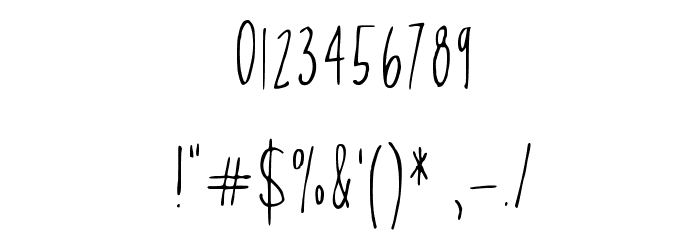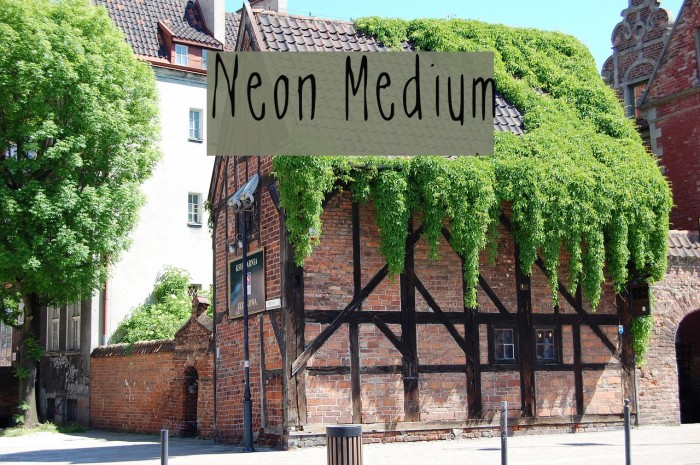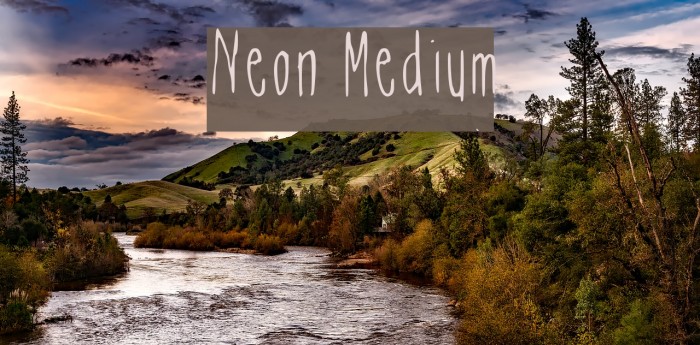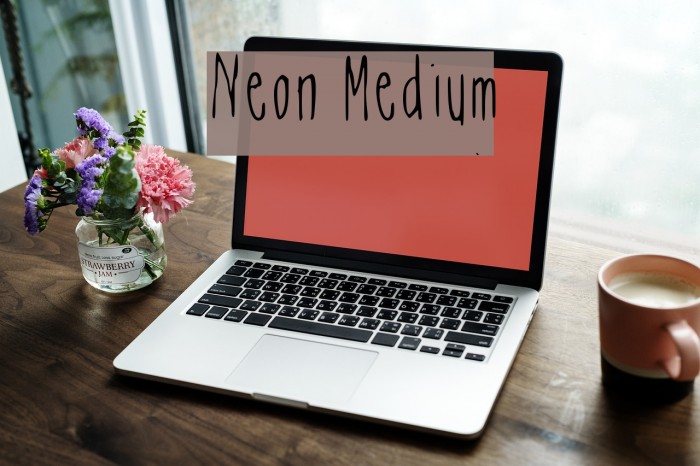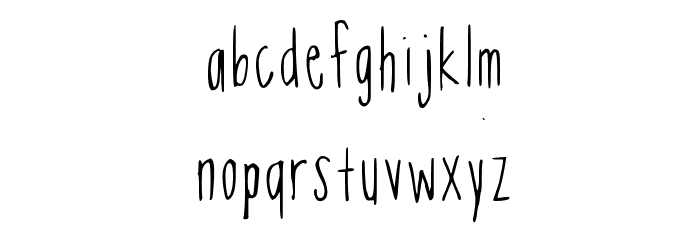
Neon Medium Font
Neon Medium Description
This font features a playful and informal handwritten style, characterized by its tall, narrow letterforms and slightly irregular strokes. The letters have a casual, friendly appearance, with a slight slant that adds to its dynamic feel. The strokes are consistent in width, providing a uniform look, while the slight variations in each character give it a unique, personal touch. The font includes a full set of uppercase and lowercase letters, numerals, and a variety of punctuation marks, making it versatile for different uses. Its overall appearance is both approachable and stylish, suitable for projects that require a personal or creative touch.
A playful, handwritten font with tall, narrow letters and a casual style from Handwritten fonts.
- Proposed Projects: Ideal for greeting cards, invitations, personal branding, and creative projects.
- Overall Style: Casual
- Use Case: Logos, Invitations, Creative projects